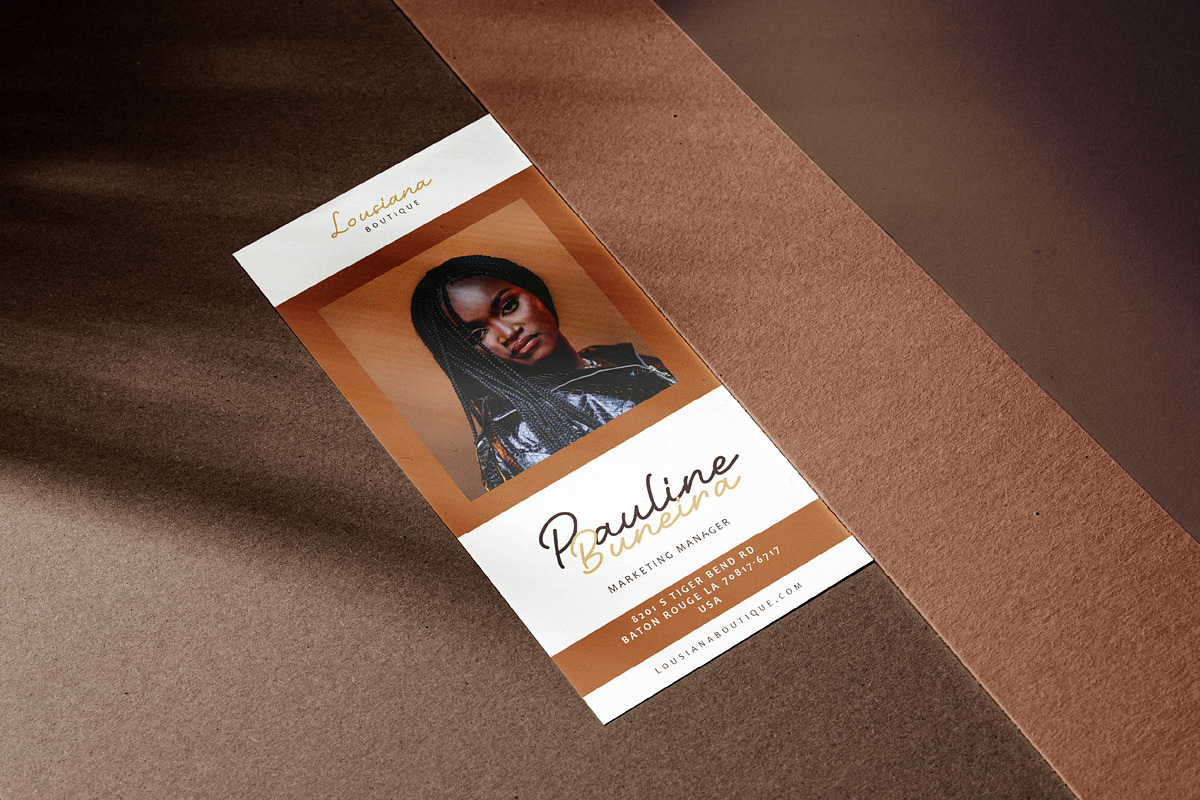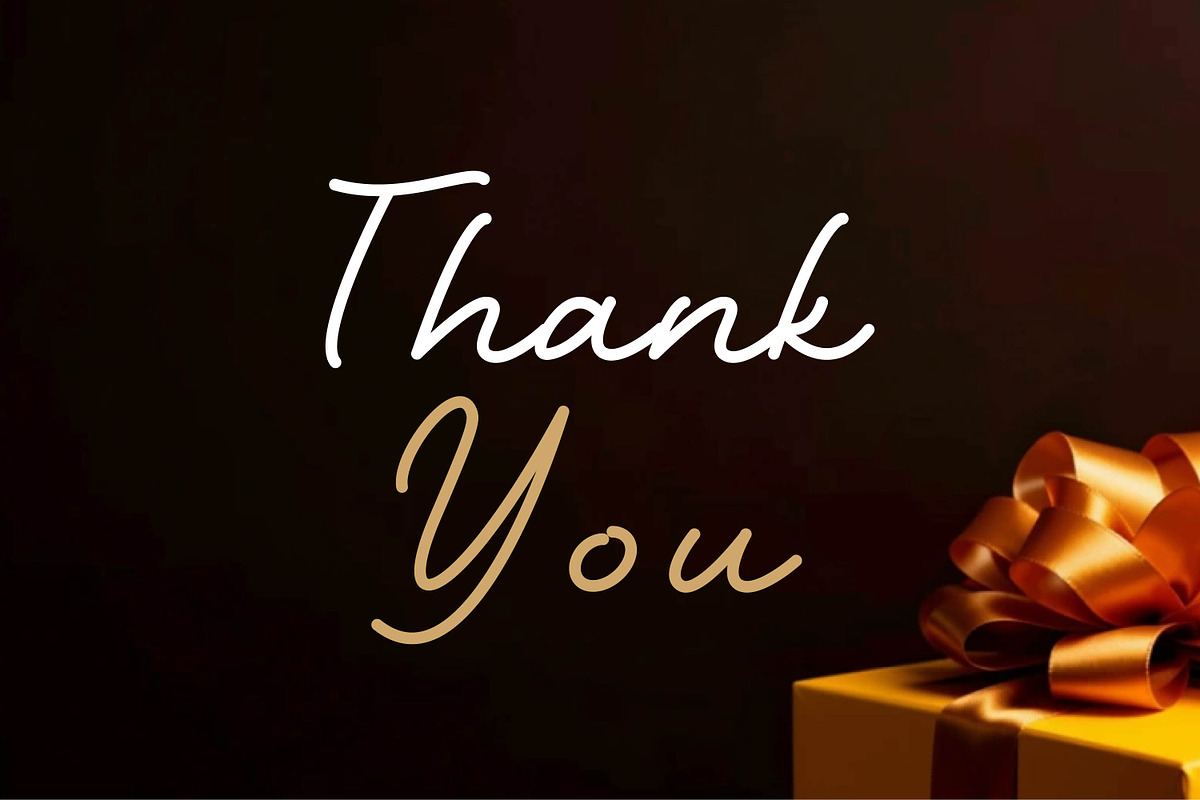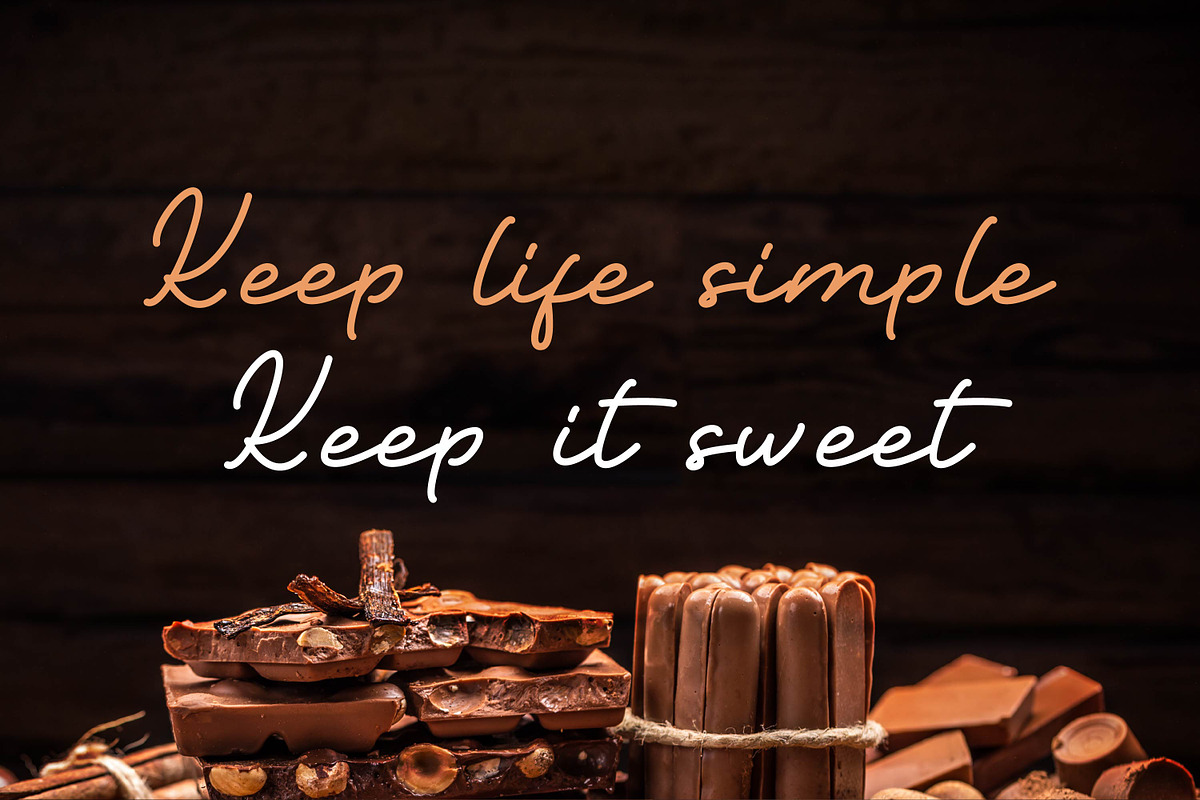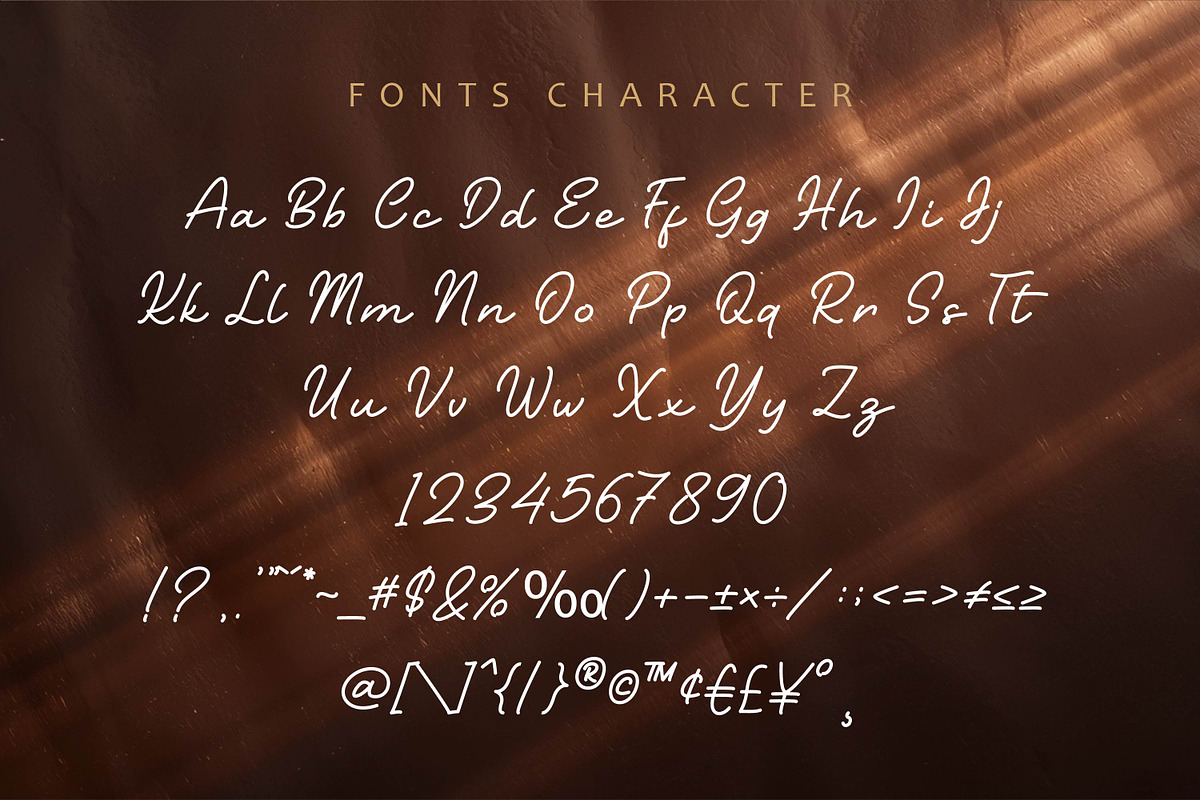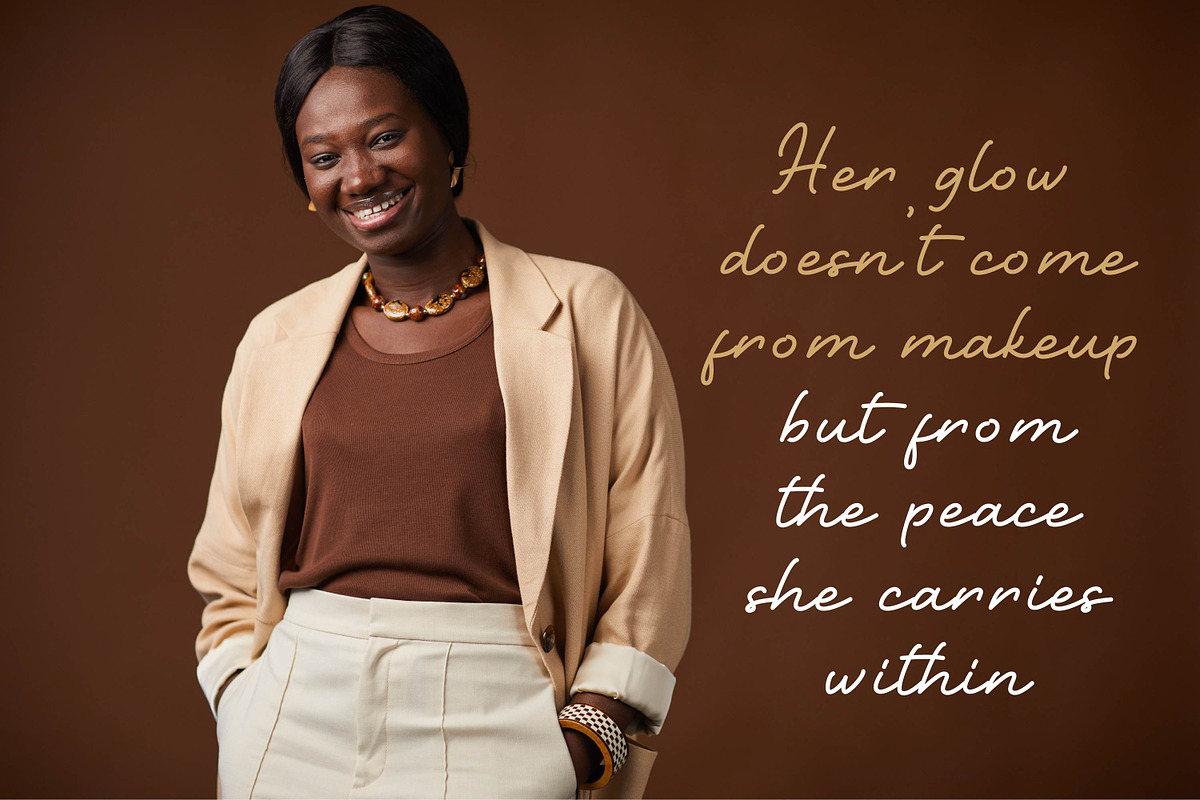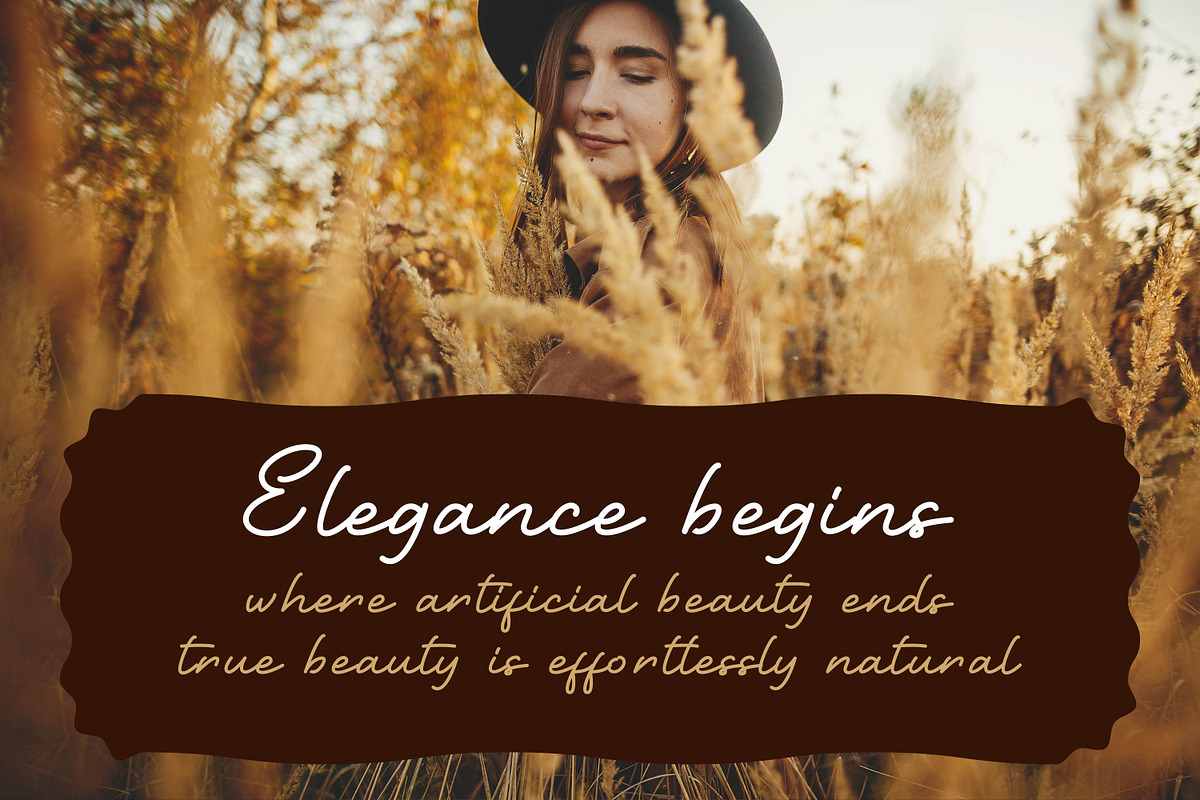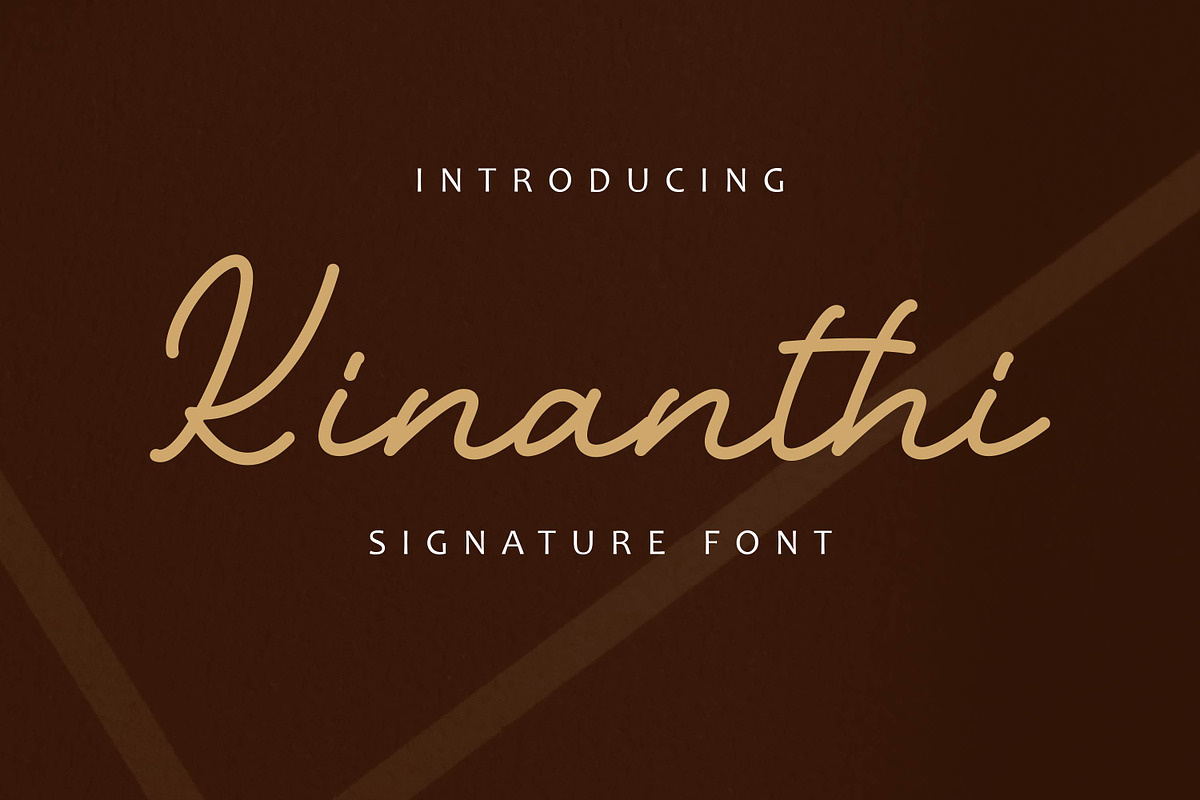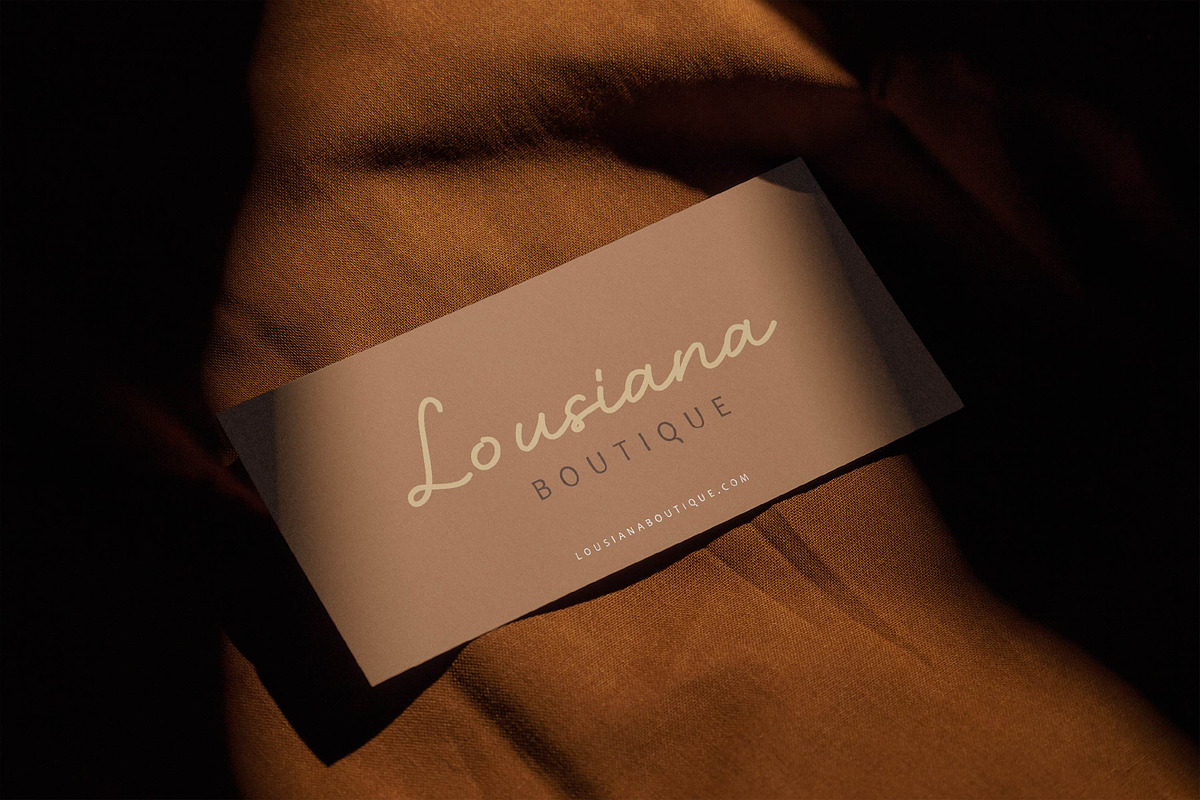
Kinanthi - Signature Font
Kinanthi is an elegant and natural signature font designed to express personality and sophistication. With its smooth strokes and handcrafted feel, it’s perfect for logos, wedding invitations, personal branding, and stylish stationery that need a touch of class and authenticity.